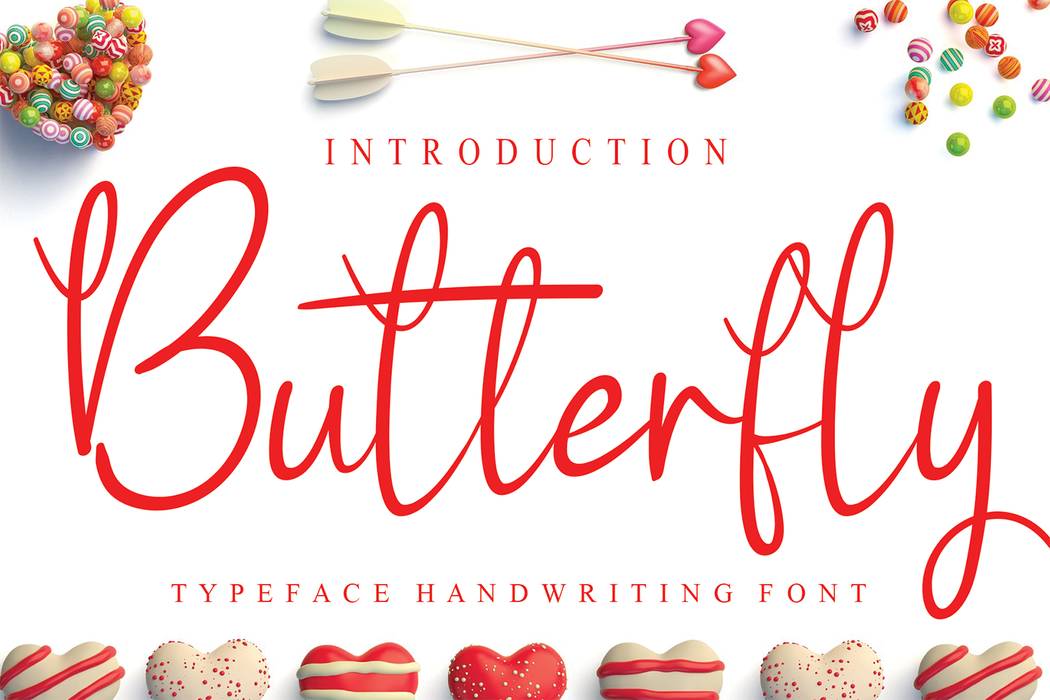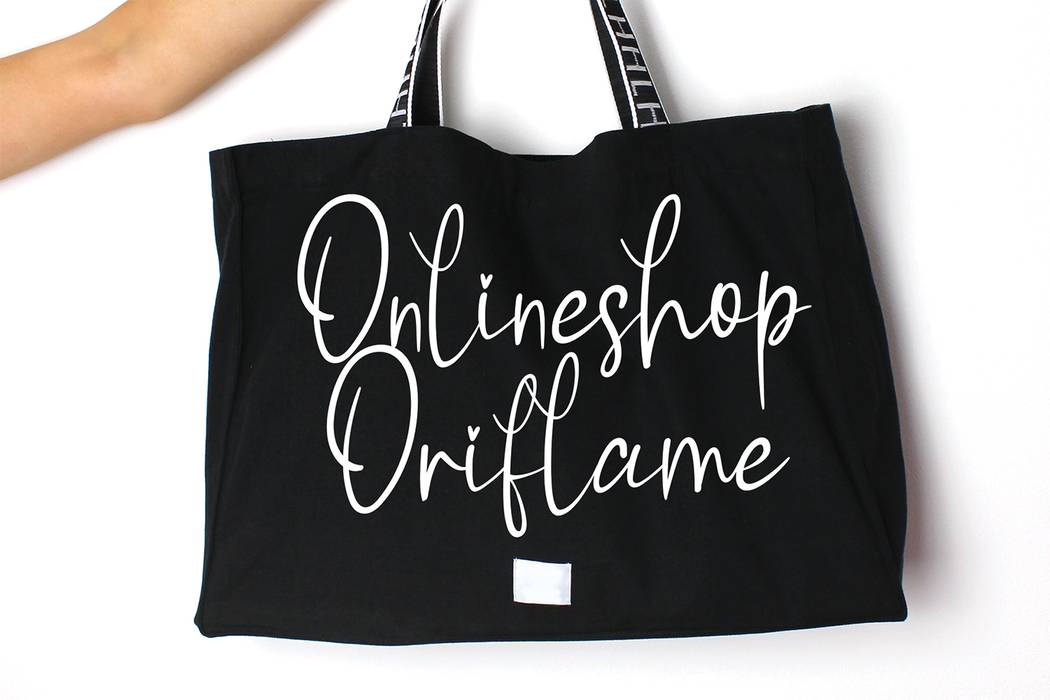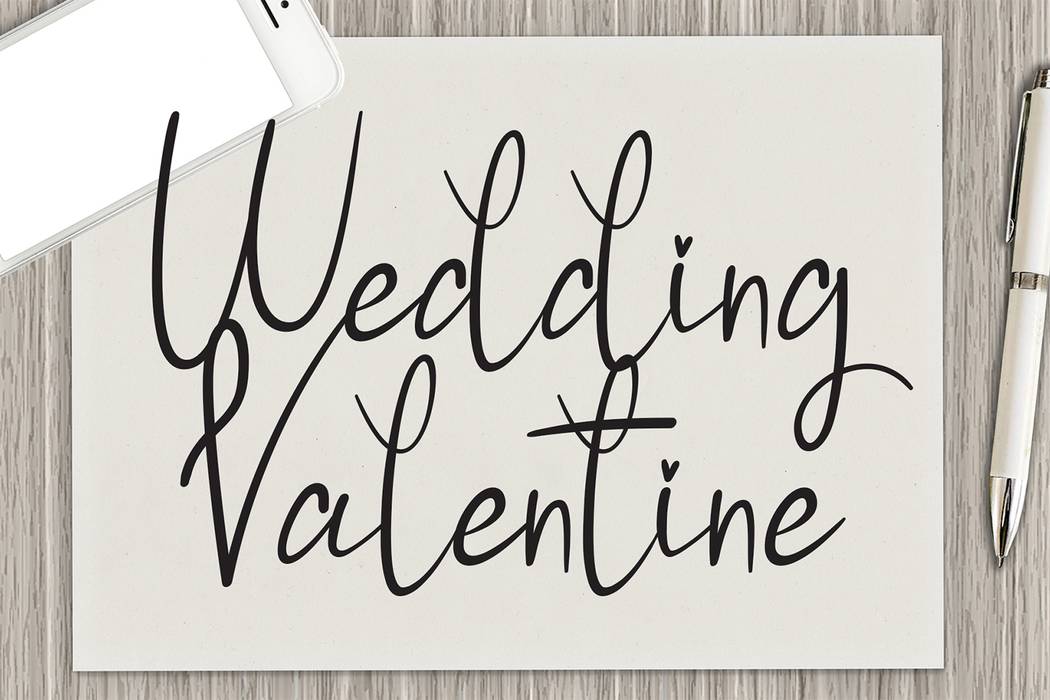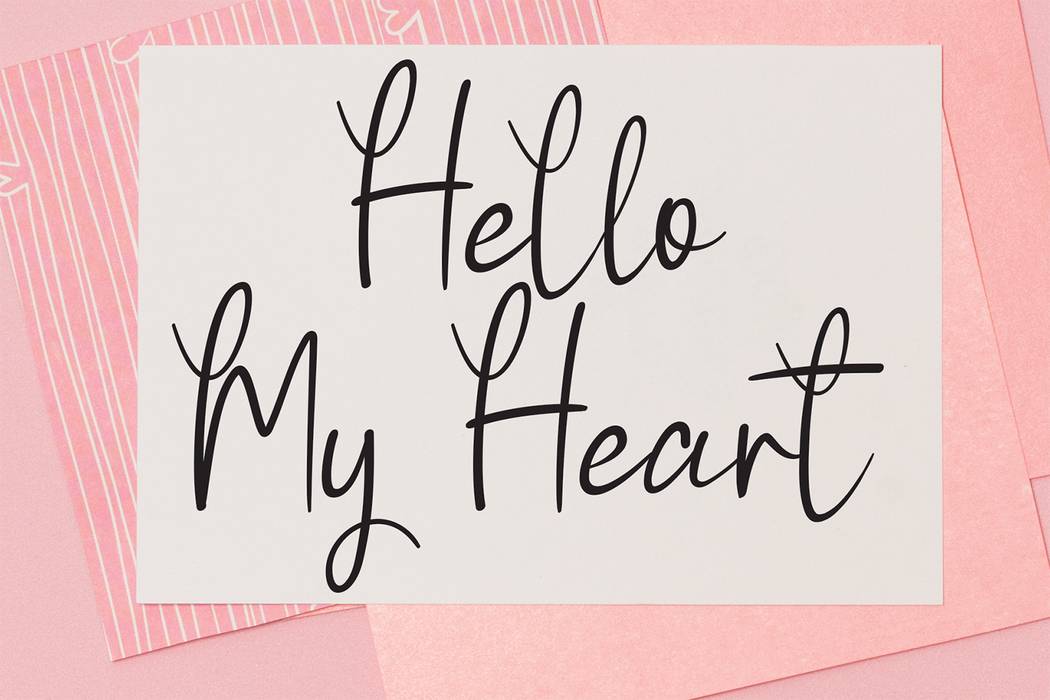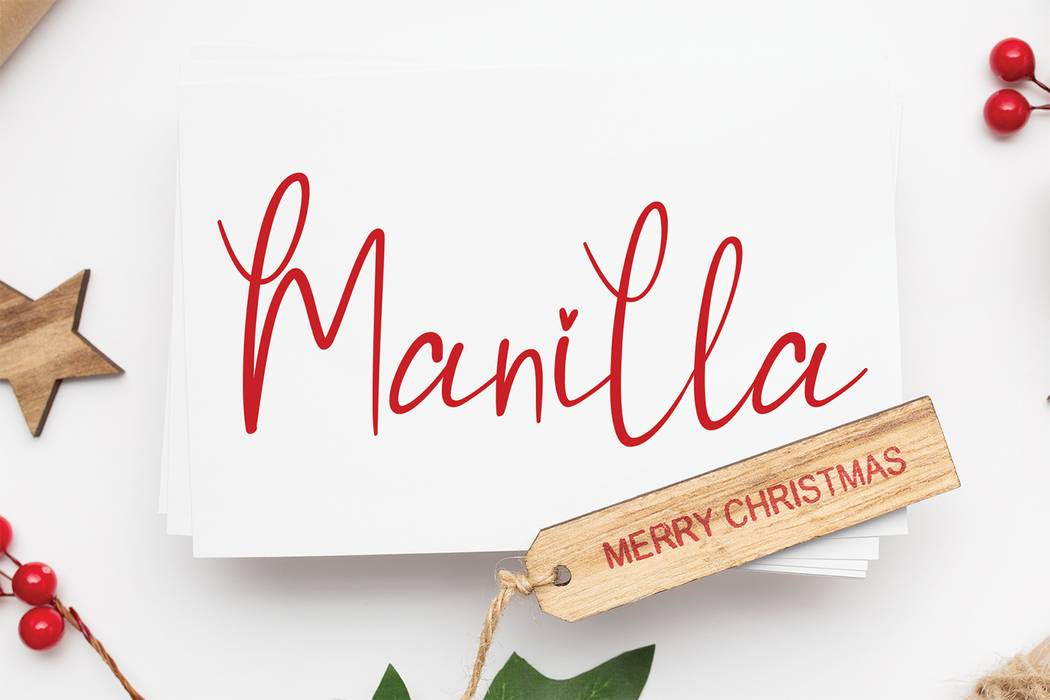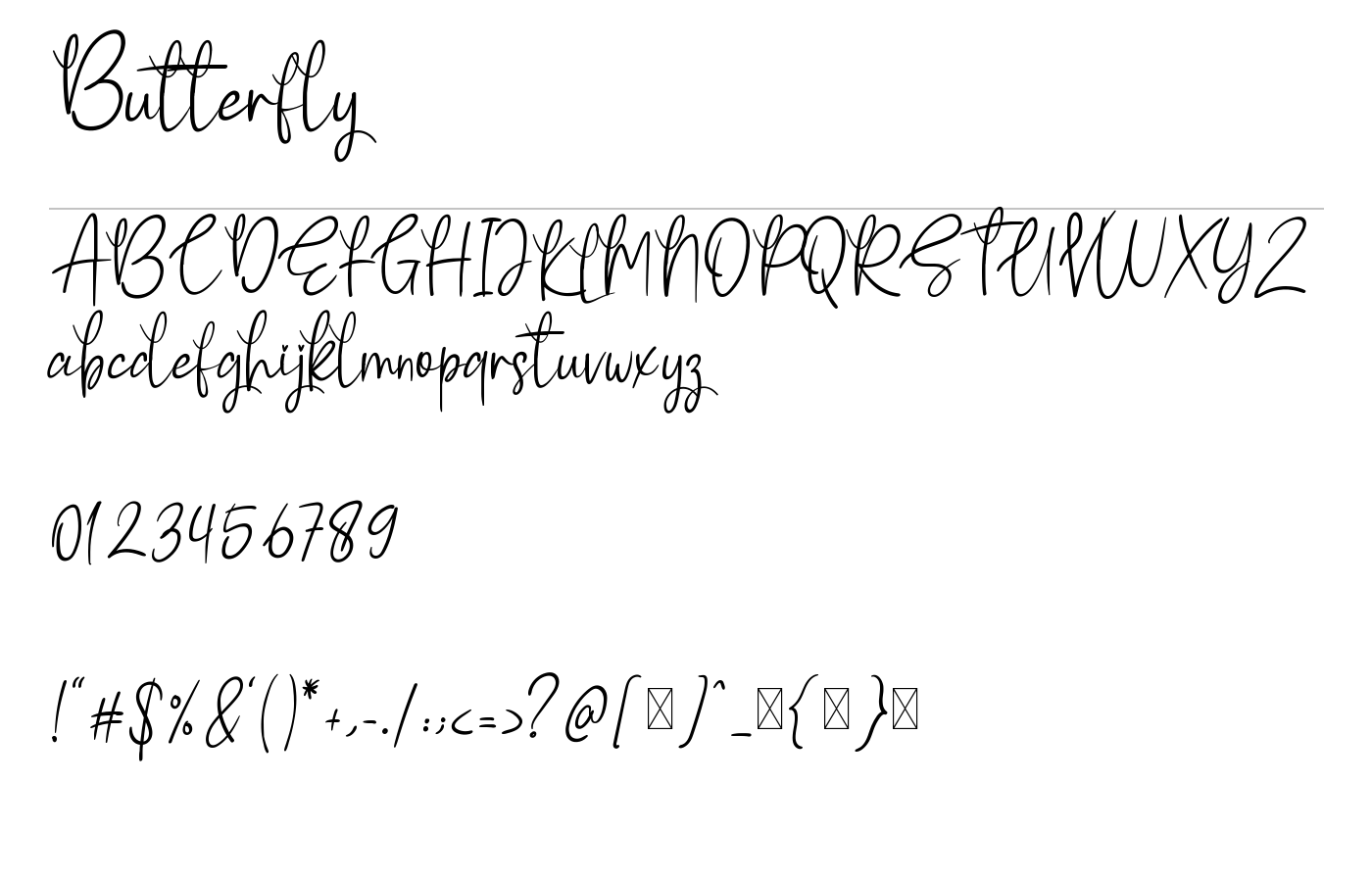
Butterfly Font is an elegant, handwritten script with a delicate and airy feel, featuring tall, slender letterforms with smooth, flowing strokes. Its light weight and playful yet refined style make it perfect for invitations, branding, and creative projects that call for a personal and graceful touch. Ideal for fashion, beauty, and lifestyle designs, this font adds a charming and sophisticated flair.
Butterfly Font
About Butterfly Font